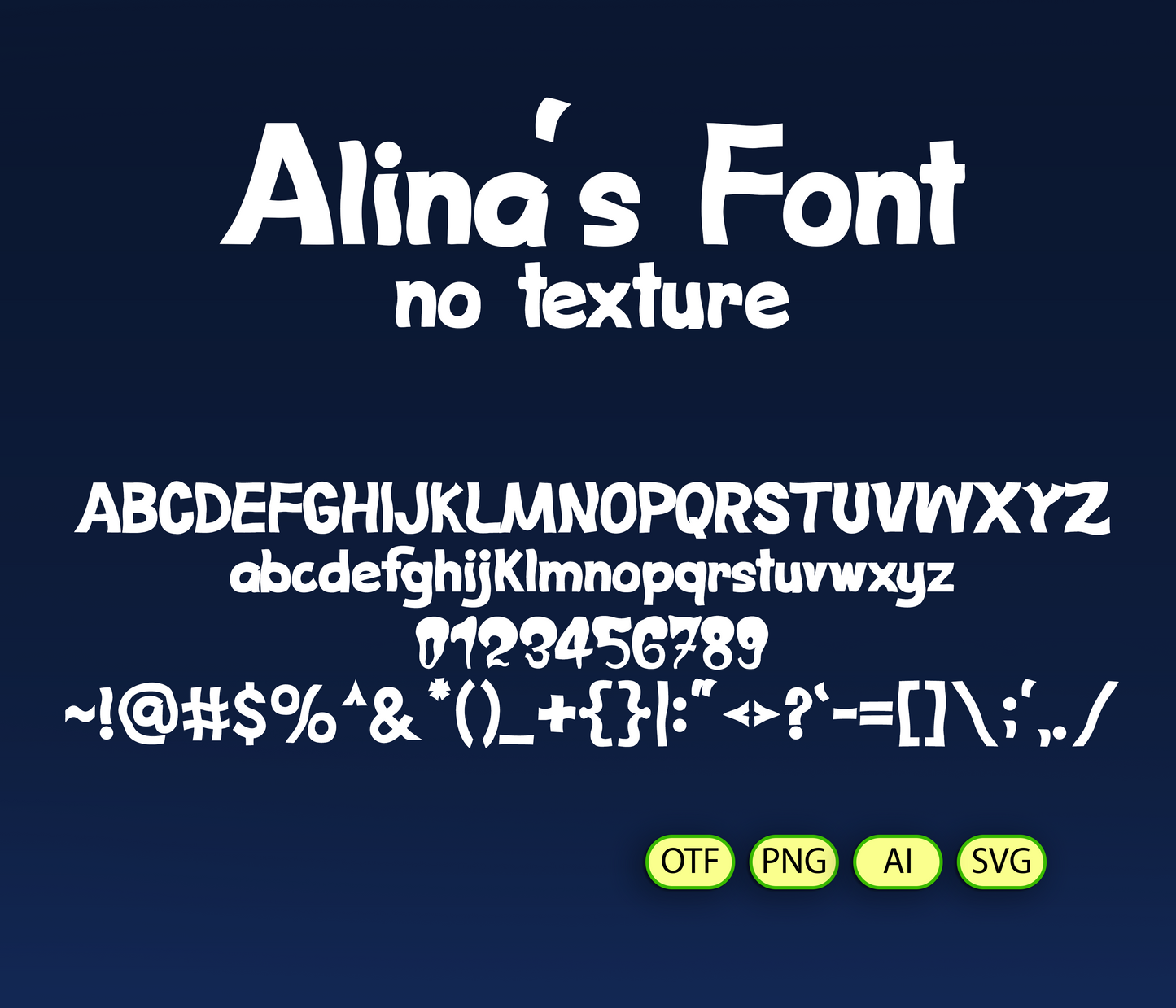
Emerald Ghostbuster's Spooky Font
Emerald Ghostbuster's Spooky Script
Dive into the charmingly eerie world of a certain green-clad, reluctant ghost hunter with our Emerald Ghostbuster's Spooky Script. This font set captures the essence of haunted mansion adventures with a playful, spine-tingling twist, perfect for fans, designers, and creatives looking to add a touch of friendly fright to their projects.
Our Emerald Ghostbuster's Spooky Script features quivering, slightly uneven characters with a hint of cartoon eeriness, reflecting the blend of spectral encounters and comical gameplay. Ideal for:
Luigi's Mansion Font